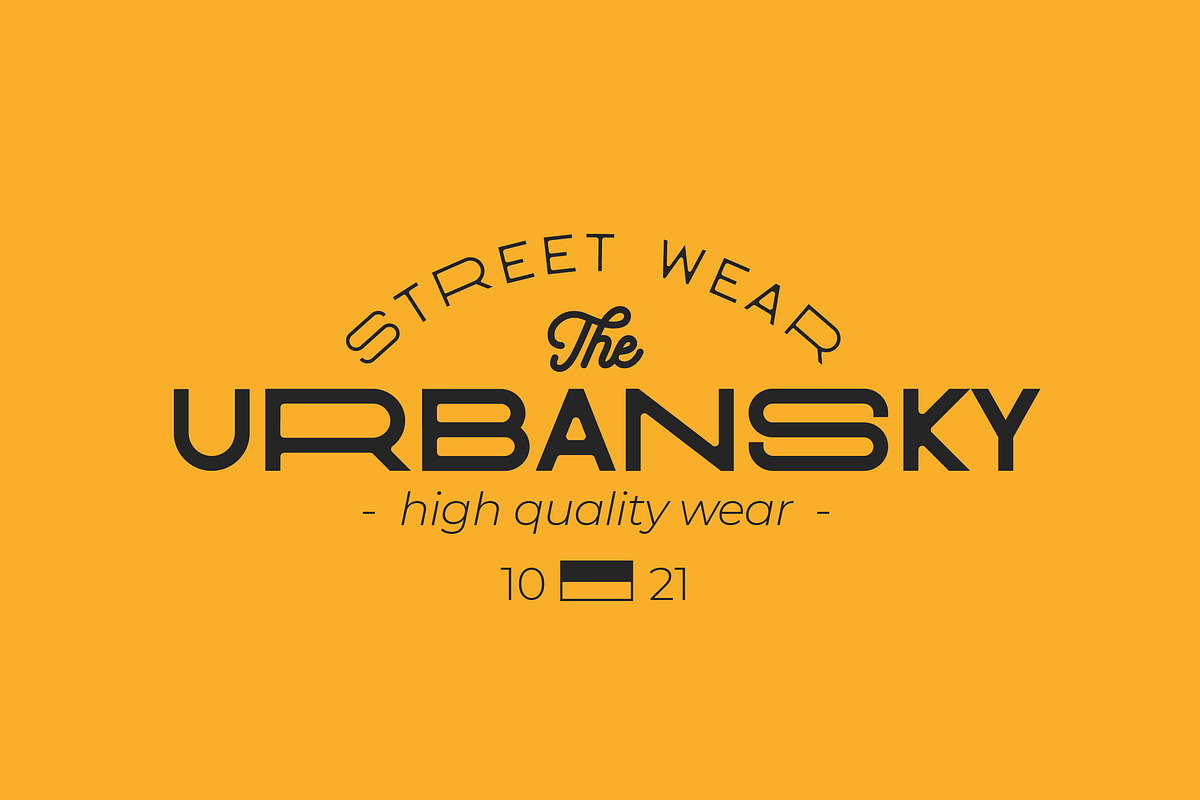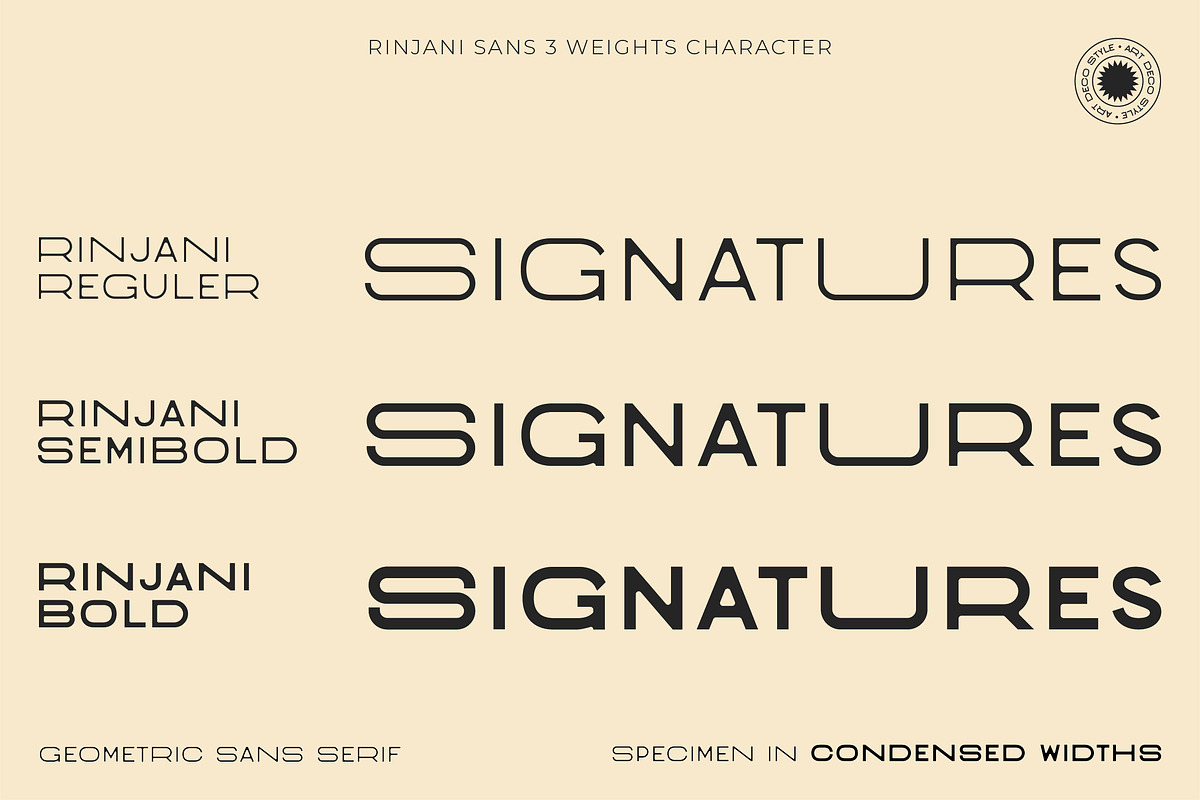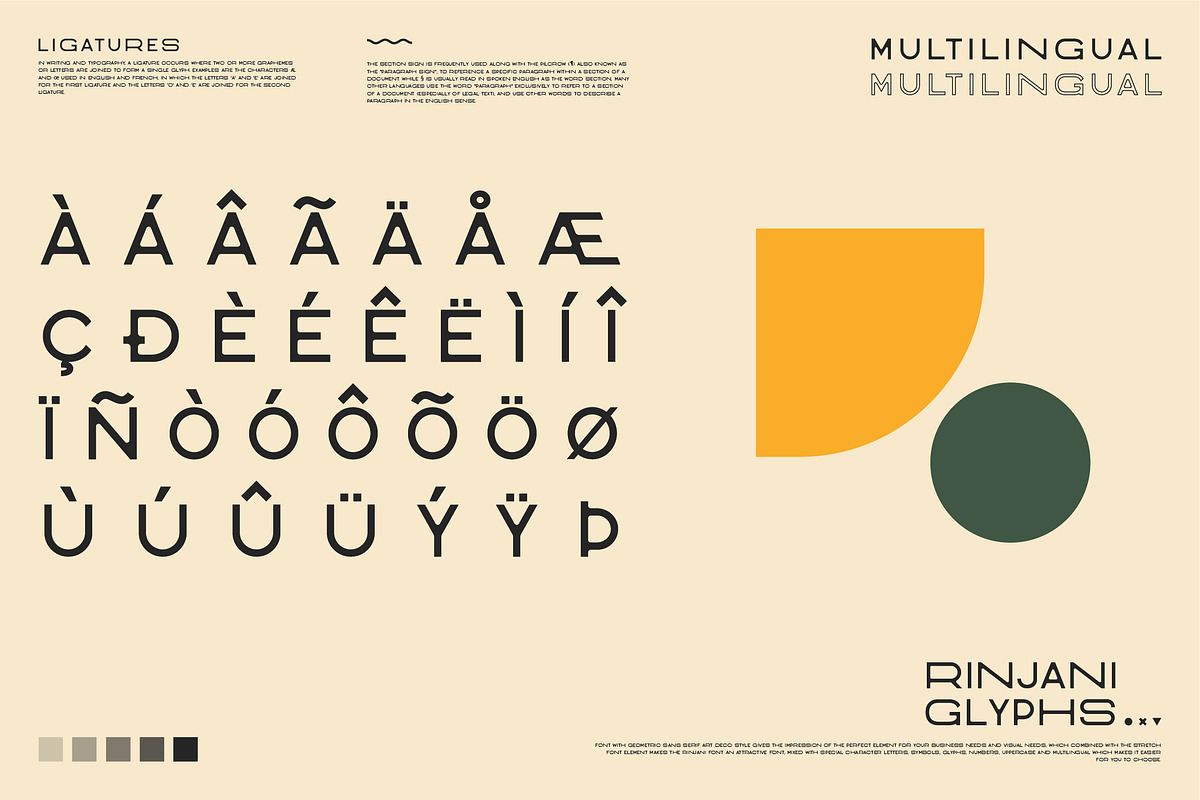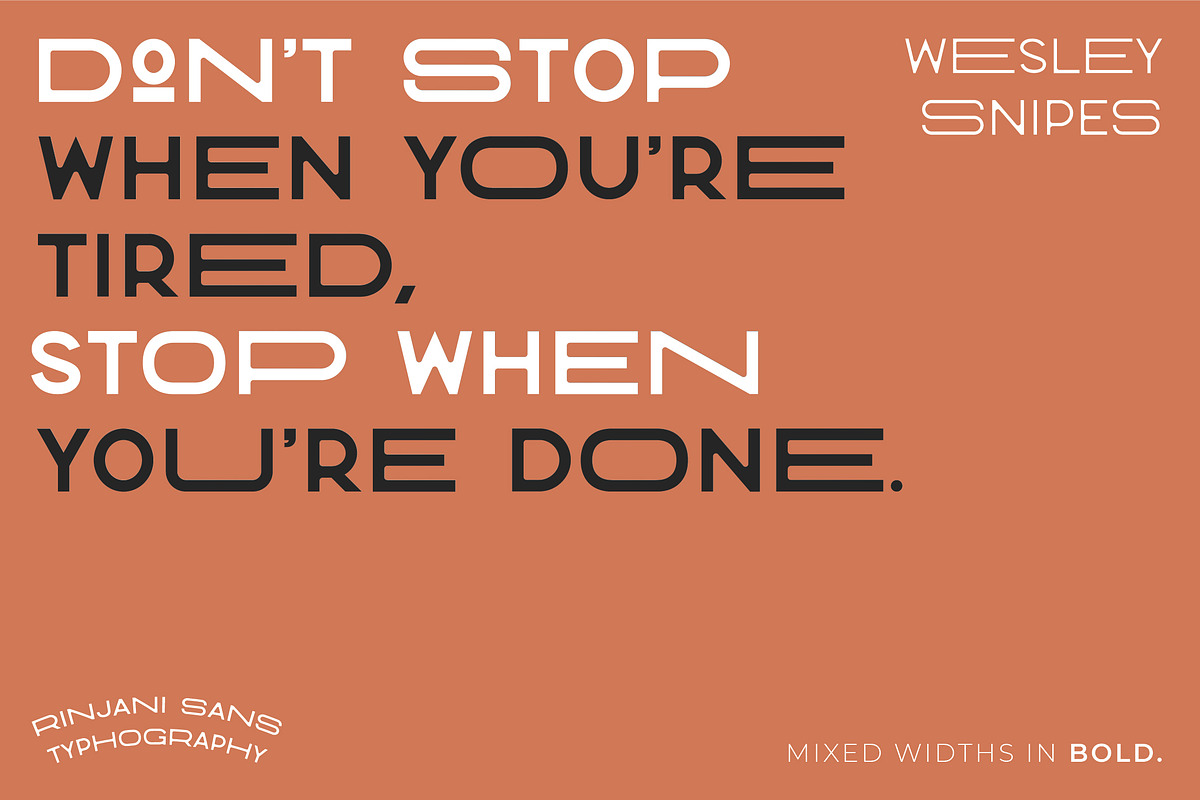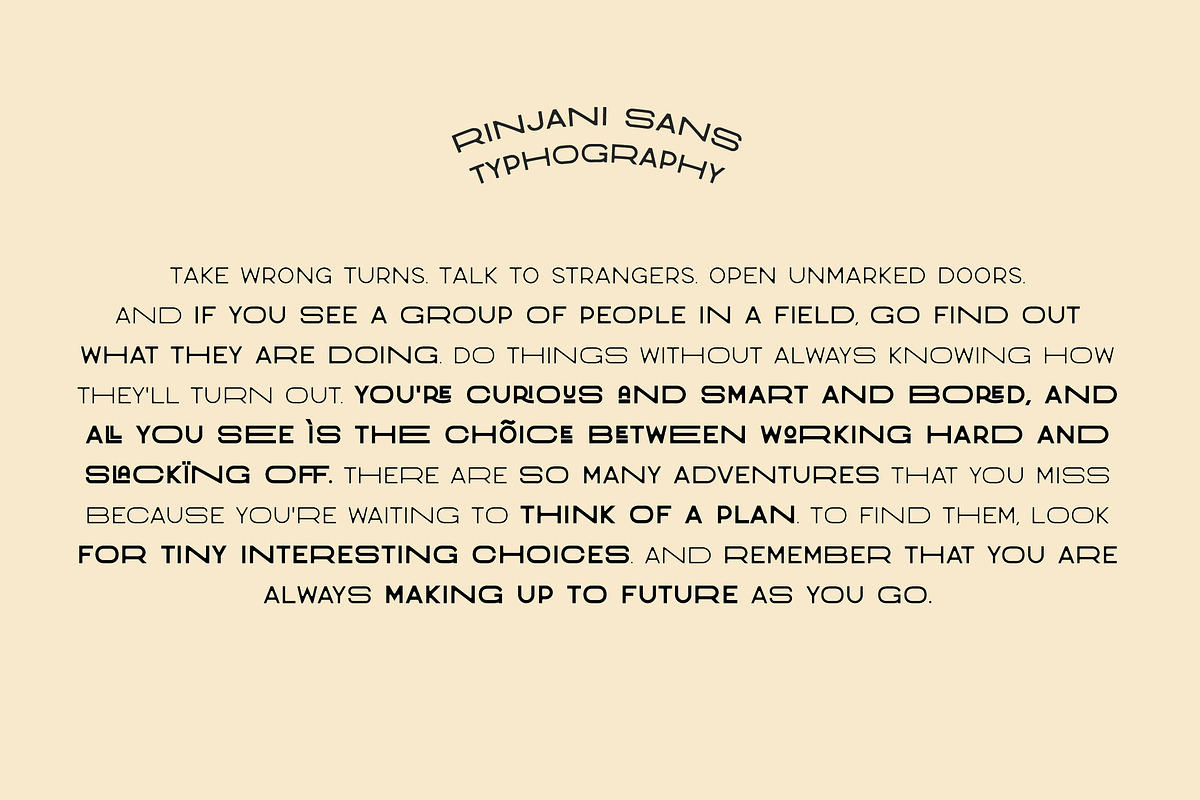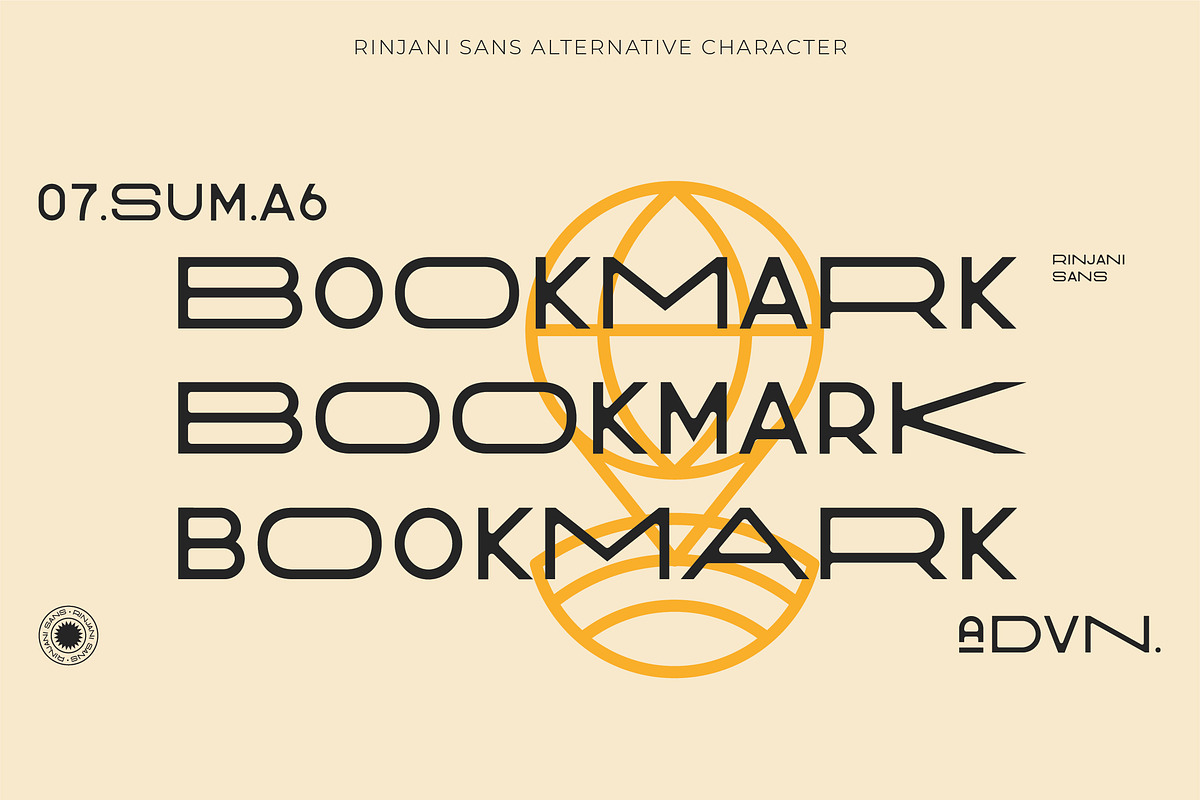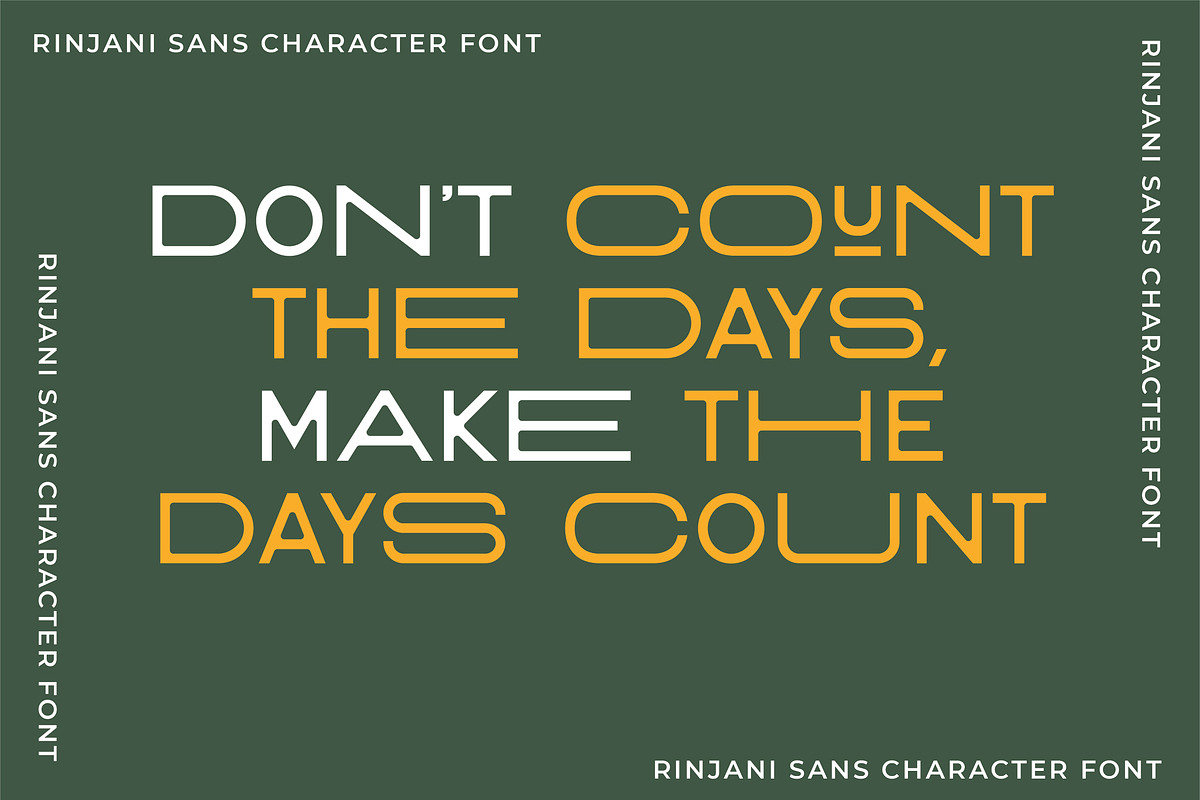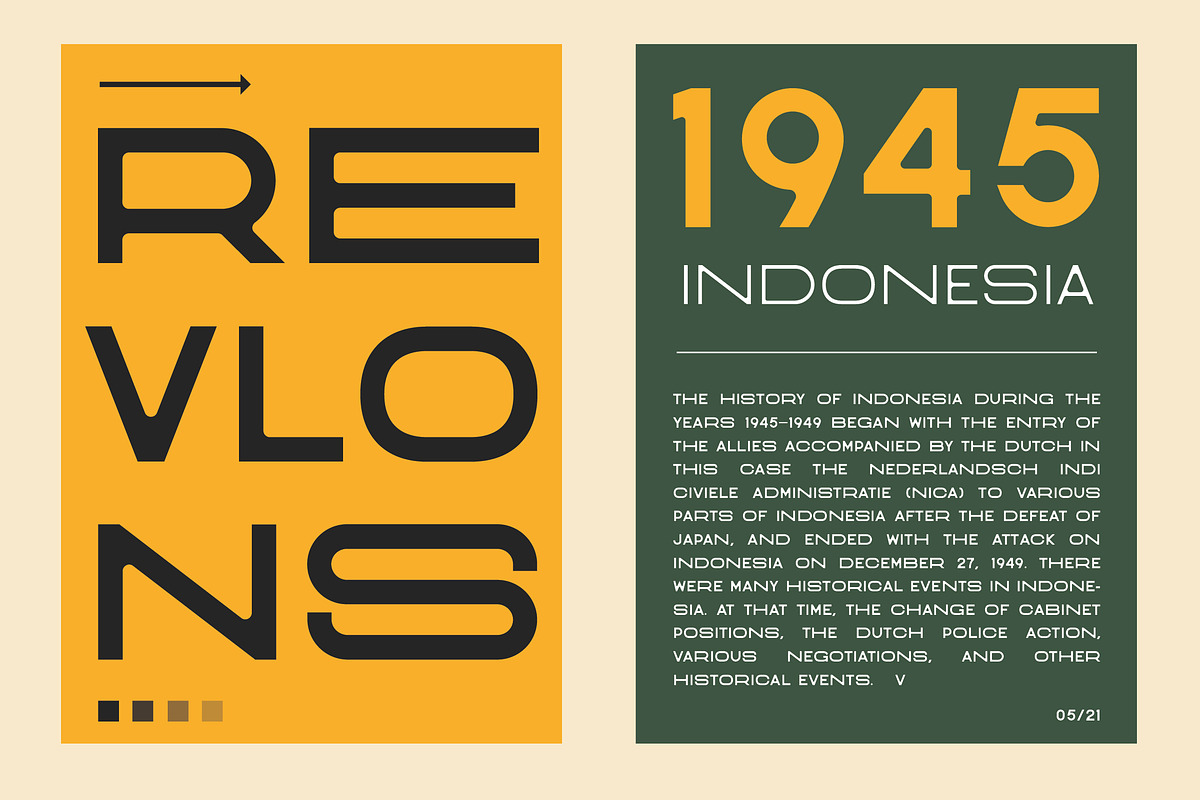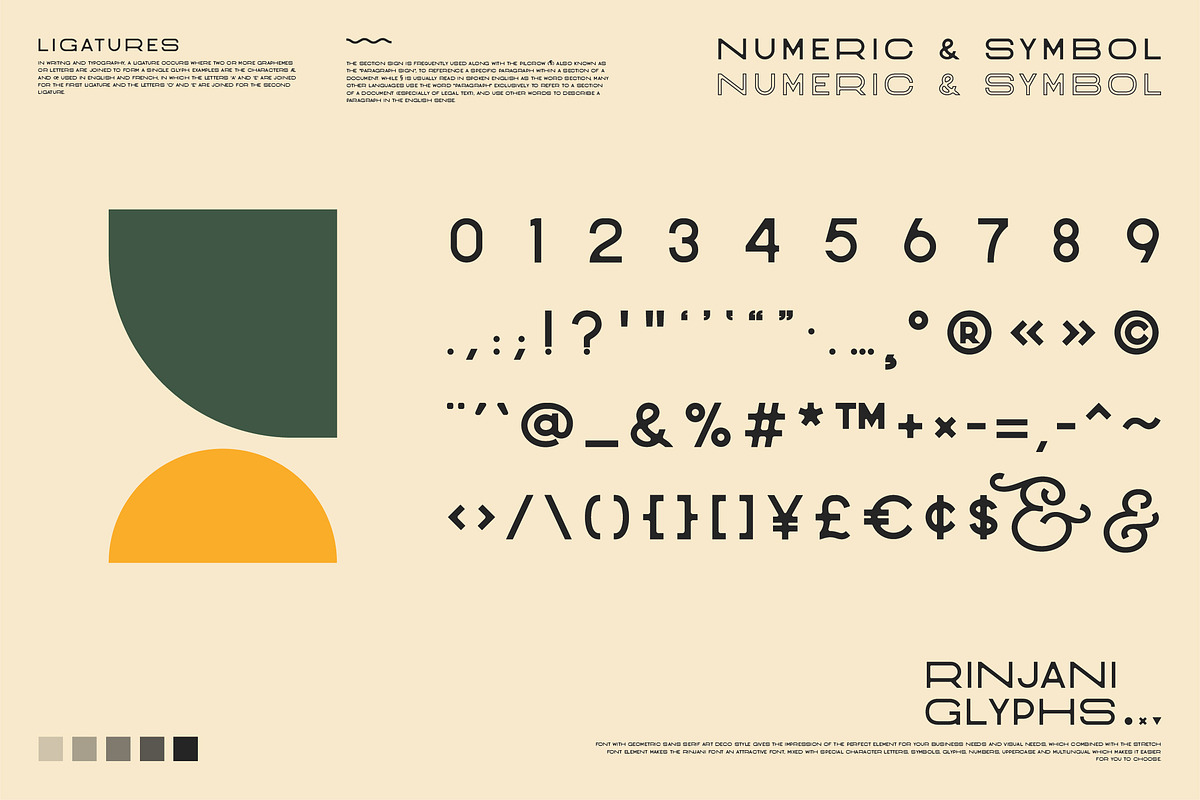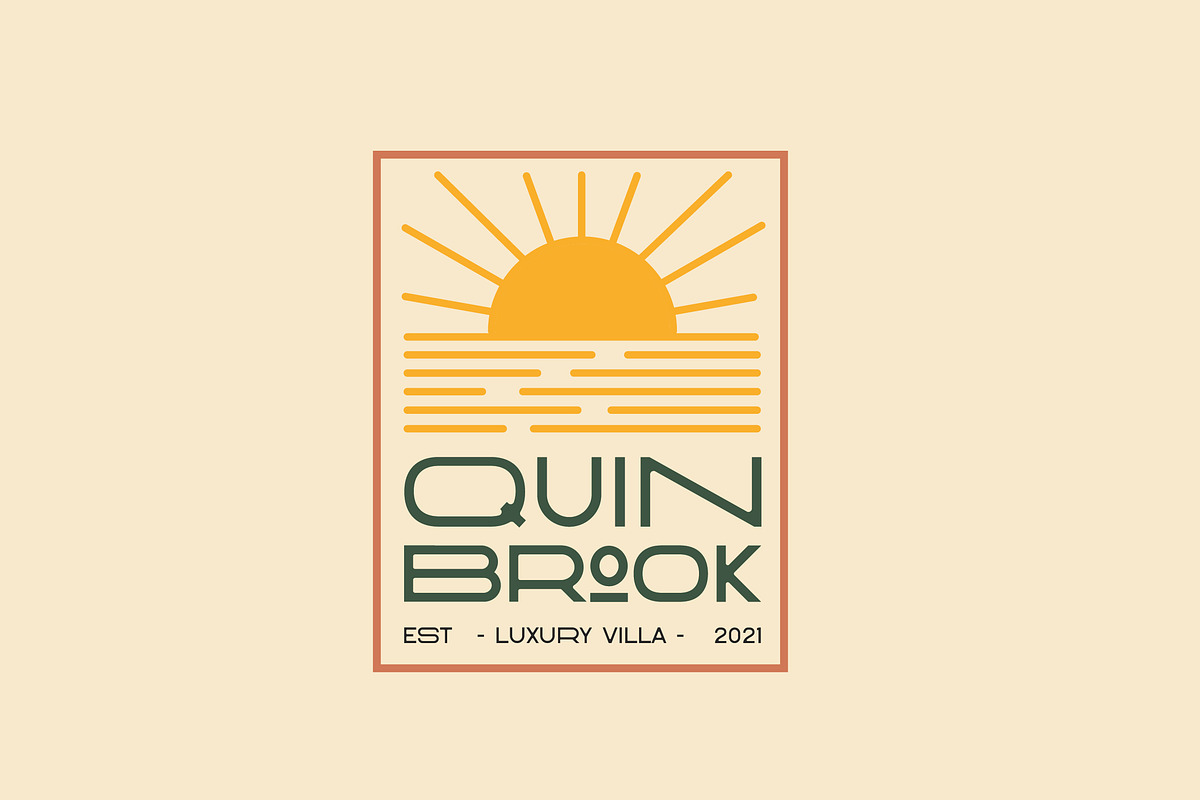
Rinjani Sans - Wide Stretch Typeface
Rinjani sans is a all-caps sans serif with Wide Stretch contemporary typographic, vintage futuristic art-deco touch Streamline influence of the 1930s and 1940s. A mix from the old Euro-American signage/advertising letters and modern clean sans serif, carefully mousecrafted to bring you the genuine feel of the era. If you're into classic/vintage letter designs, then this typeface suits best for you. Packed with 300+ glyphs (alternate and multilingual characters included), now it’s your time to go crazy and explore the uniqueness of this typeface!
3 Weights font
Stylistic Alternates & Ligatures